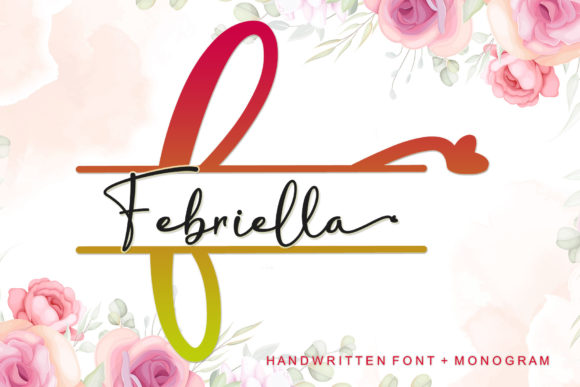
Welcome to the world of Febriella Font, a breathtaking script font that will add a touch of magic to your creative projects! Step into a world where letters dance elegantly along the baseline, captivating your audience with their charm and playfulness.
Febriella is not just a font; it's an expression of art, embodying the essence of luxury and sophistication. Its meticulously crafted characters possess a captivating allure that will elevate your designs to new heights. Whether you're a seasoned designer or just starting your artistic journey, Febriella will become your trusted companion, transforming your ideas into masterpieces.
With its PUA encoding, Febriella grants you effortless access to an array of glyphs and swashes, empowering you to unleash your creativity. Let your imagination soar as you discover endless possibilities for logos, branding, invitations, posters, social media graphics, and more.
Picture this: a stunning logo that commands attention, leaving an unforgettable impression on your clients. Febriella's intricate details will make your brand shine, setting you apart from the competition. Or envision an enchanting invitation that beckons your guests to a special event, its elegant script adding a touch of exclusivity and anticipation.
Febriella is the ultimate choice for those seeking to make a statement. Its beauty and versatility transcend boundaries, making it the perfect font for any occasion or project. Indulge in the luxury of Febriella today and witness the transformation of your creative visions into stunning realities.